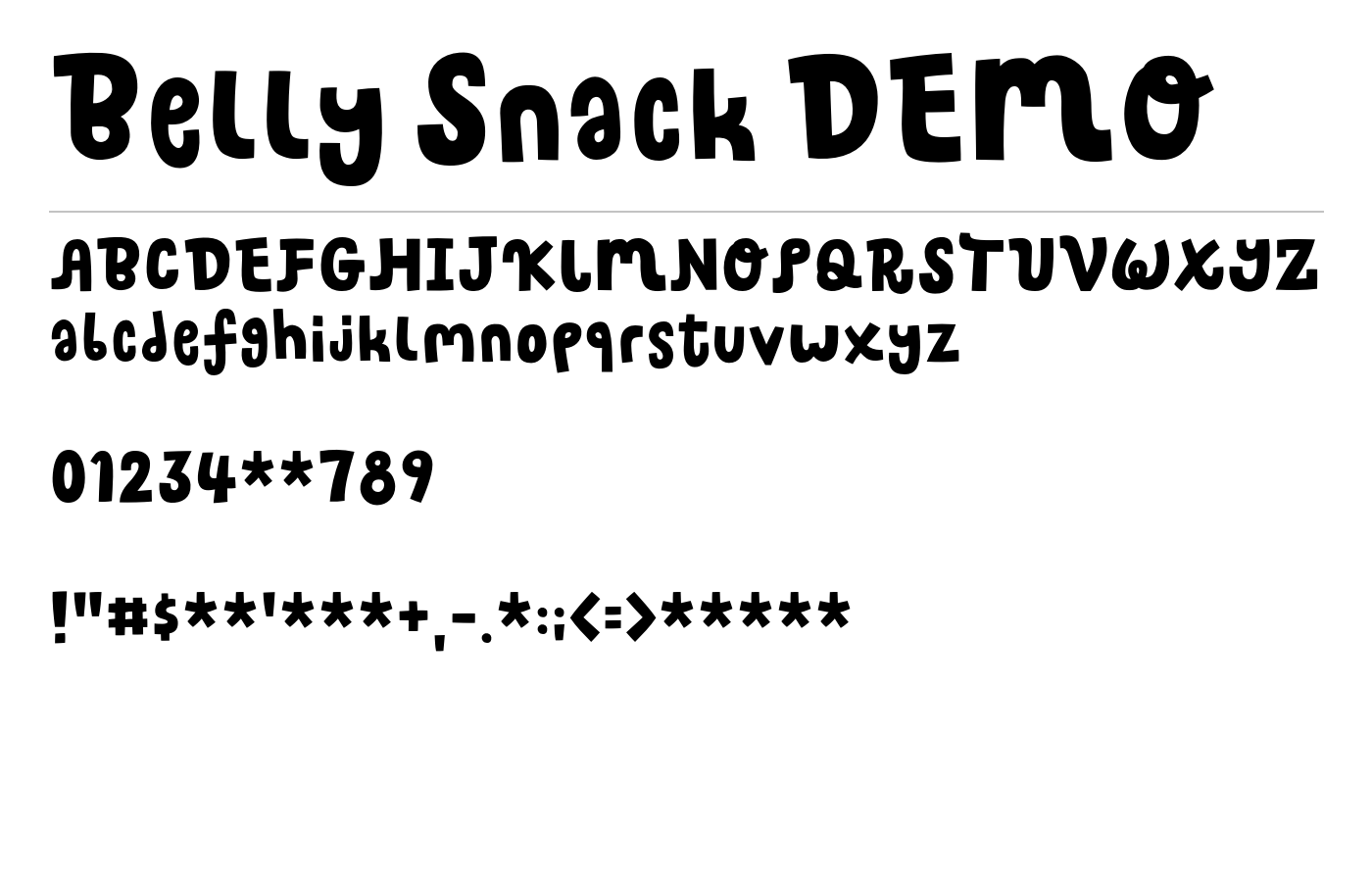
Belly Snack DEMO is a bold, playful sans serif font with rounded, chunky letterforms that give it a friendly and approachable vibe. Its irregular shapes and lively character make it ideal for casual branding, children’s products, and fun headlines where a sense of warmth and cheerfulness is desired. This font works best in display settings, adding a whimsical charm that captures attention with its unique, hand-crafted feel.
Belly Snack DEMO Font
About Belly Snack DEMO Font
| Font family | Belly Snack DEMO Font |
| Designer | Jakob Fischer / pizzadude.dk |